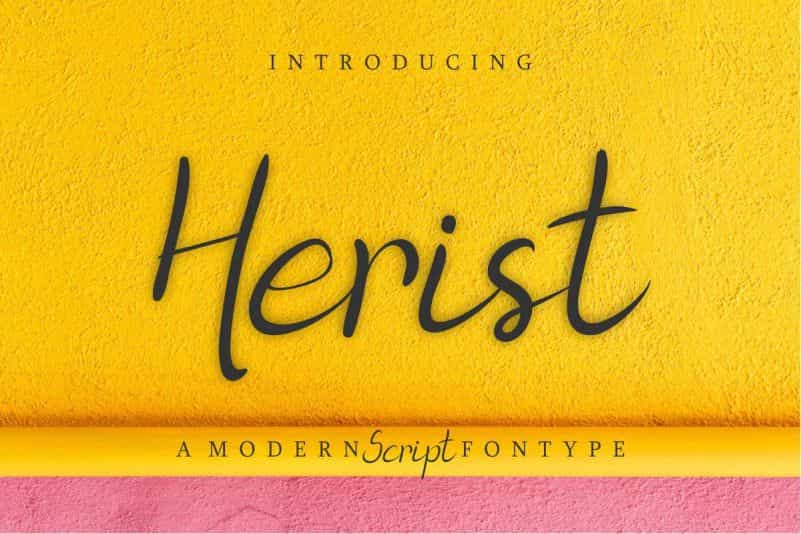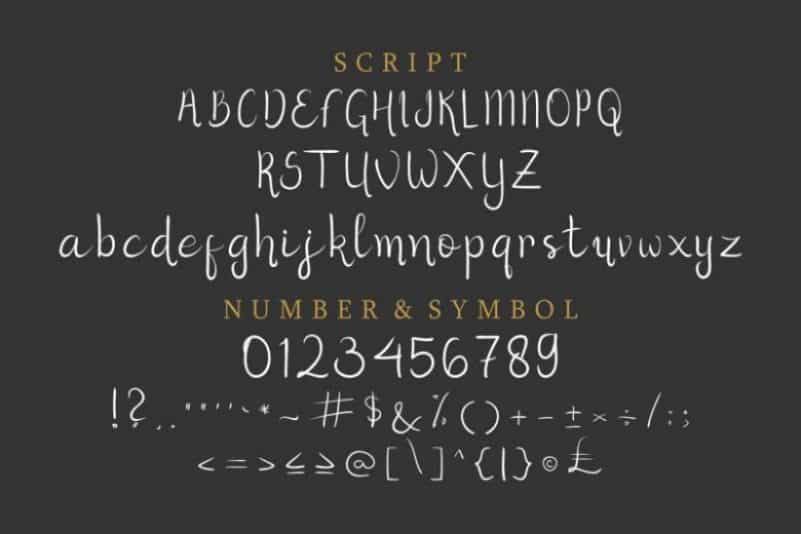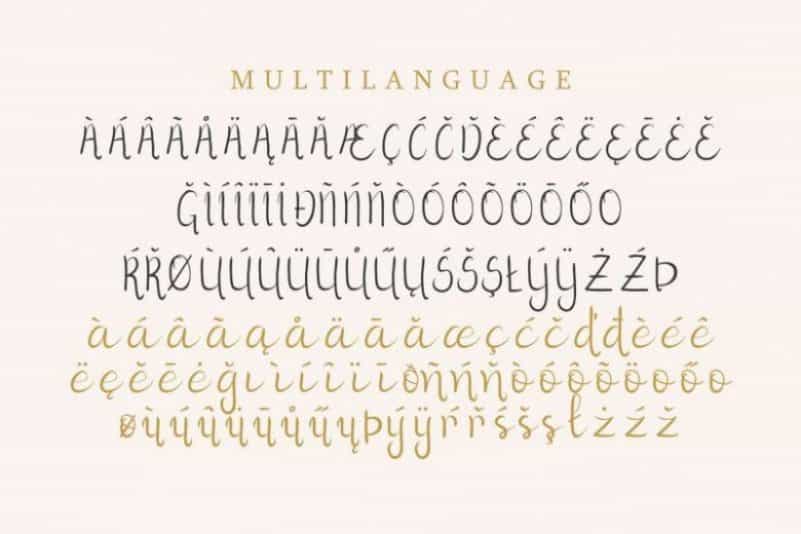
Discover Herist Calligraphy Font, part of the Calligraphy collection—a versatile and unique font perfect for adding a personal touch to your projects. Download it for free and enjoy crafting designs with style, from invitations to social media posts. This font is available exclusively for personal use, giving you the freedom to create without limits. Unlock your creativity with Herist Calligraphy Font today!
Herist Calligraphy Font! It is a basic pen handwriting script display font. You will get : OTF, TTF, Woff. Two Styles : Regular and Italic. In addition, there is a lot of international language support.